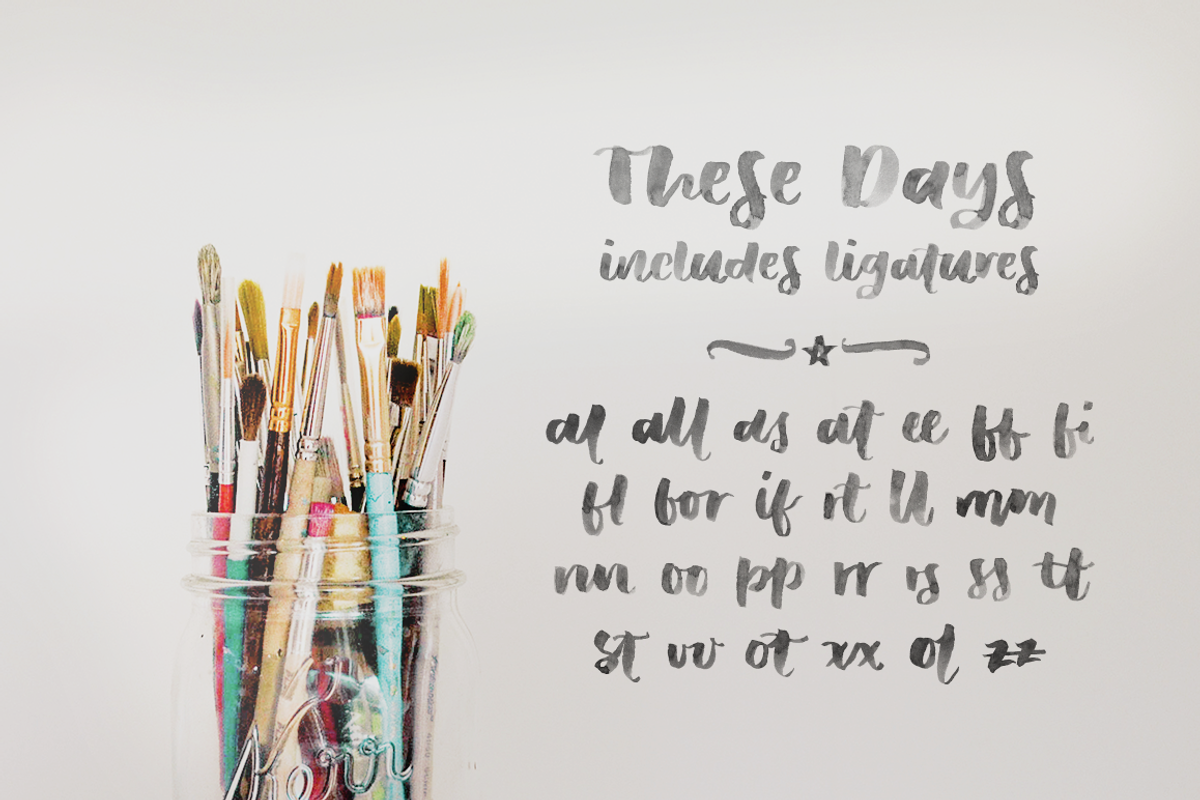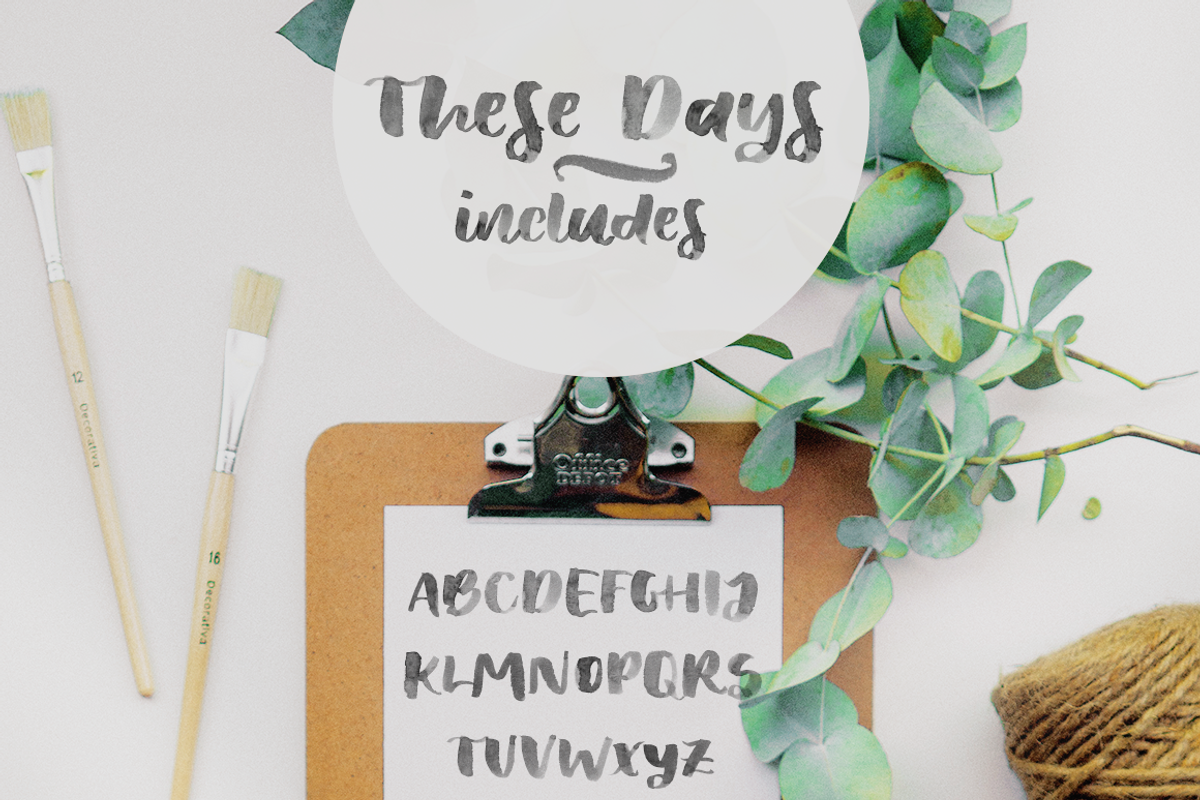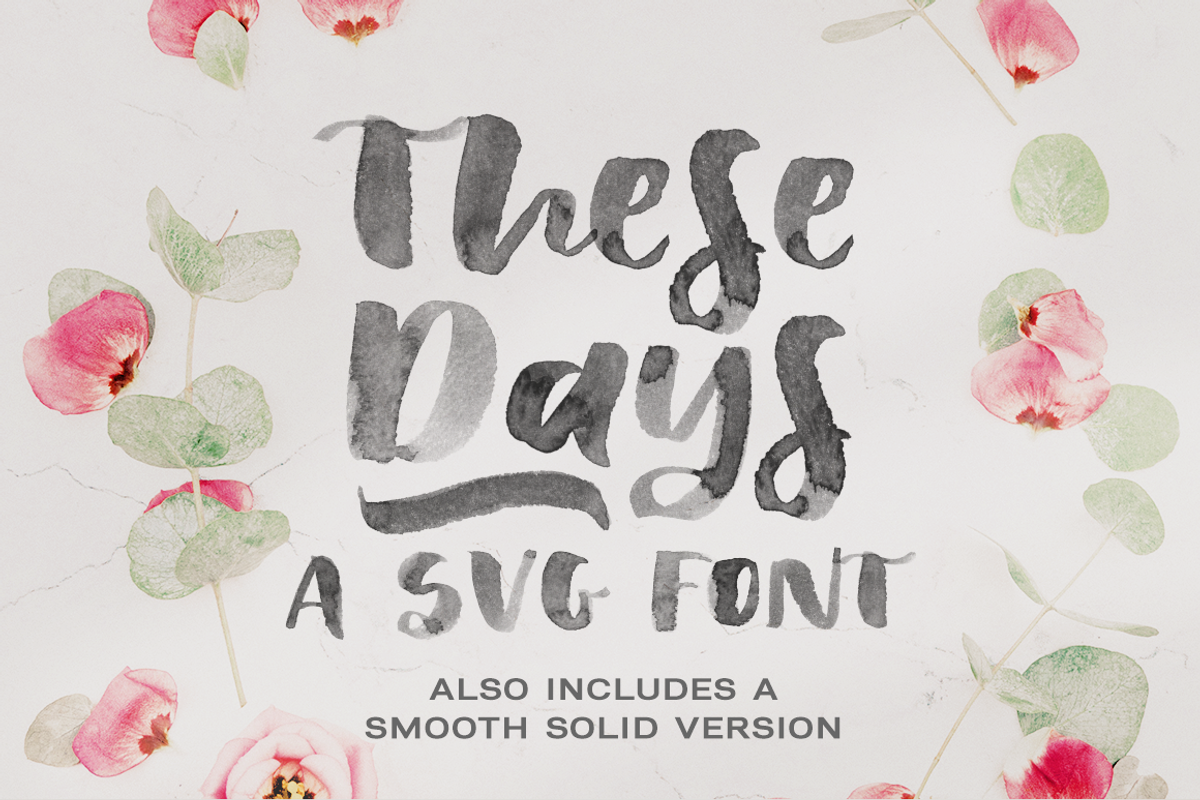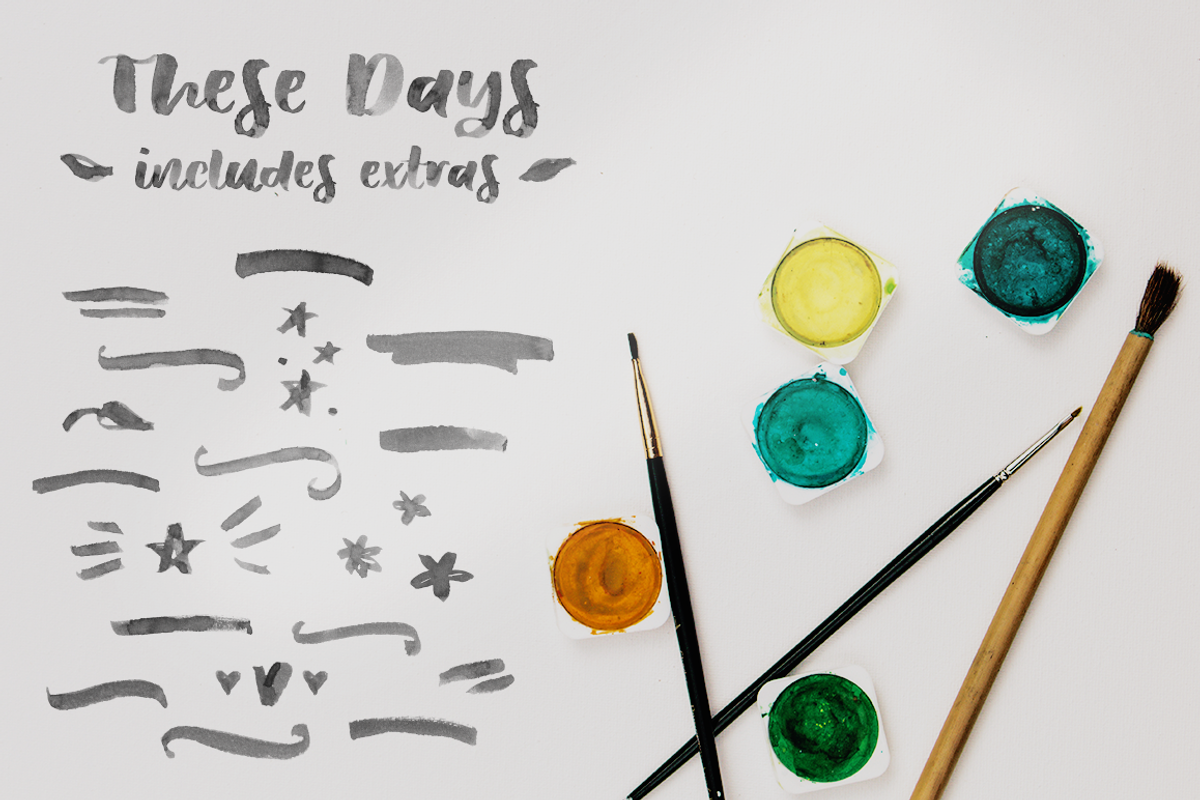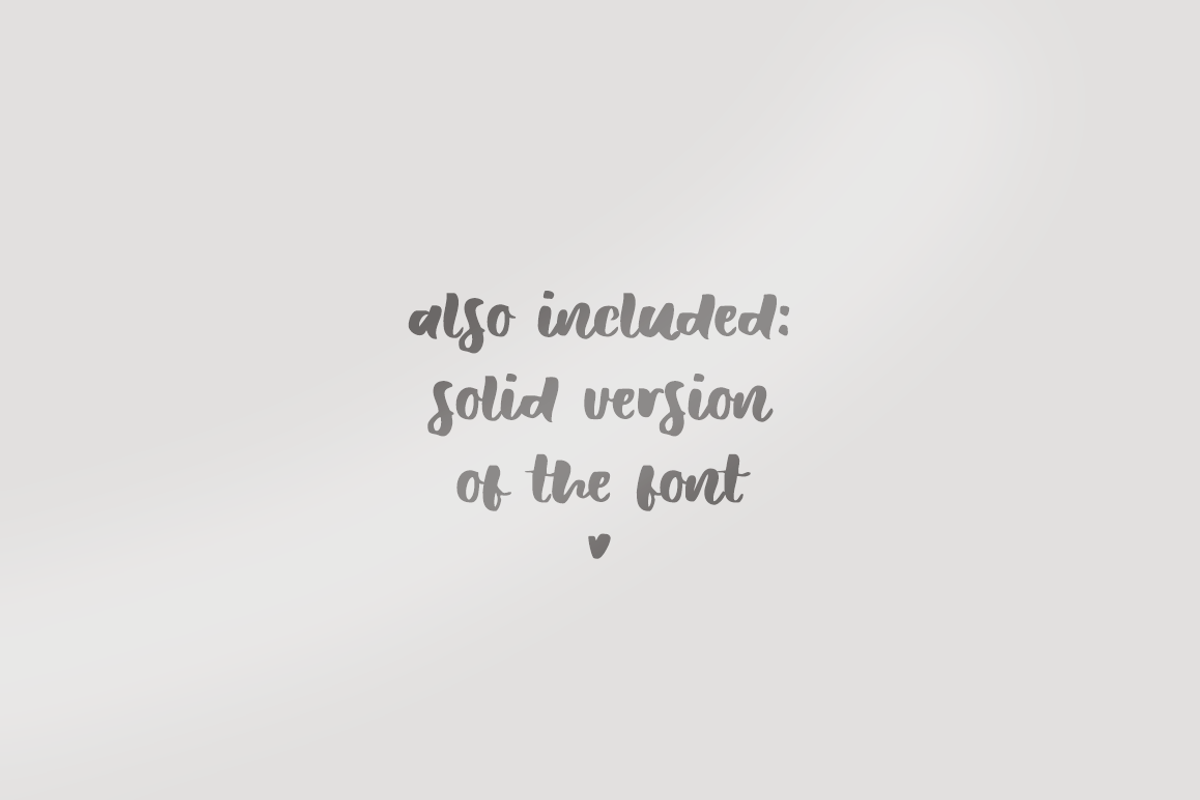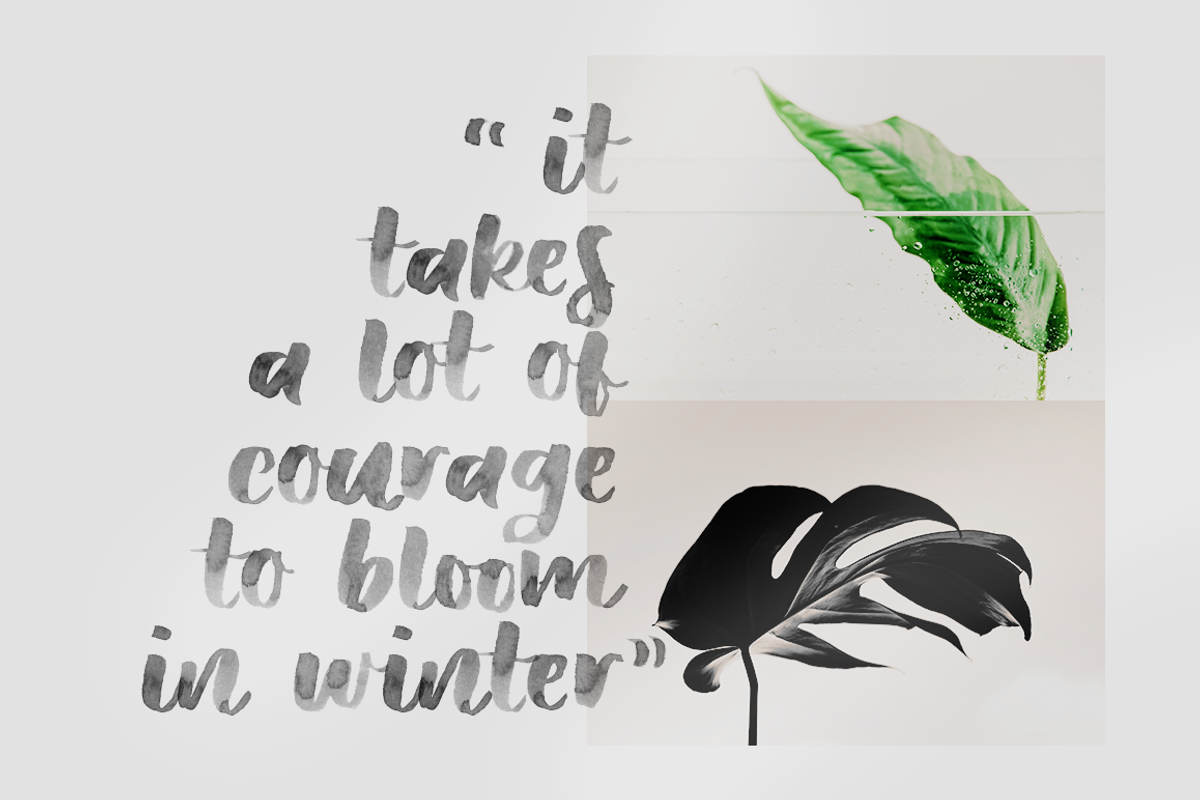
These Days SVG watercolor brush font
These Days is a SVG watercolour brush font with a heavy textured look. It also includes a solid smooth version in OTF/ TTF.
The SVG font includes a more limited character set without multilingual support (although I have included the accents, so that you can eventually compose the accented letters yourself).
- It also includes a set of 26 ligatures, doodles, swashes and splatters (in the Extras files), perfect to decorate your designs.